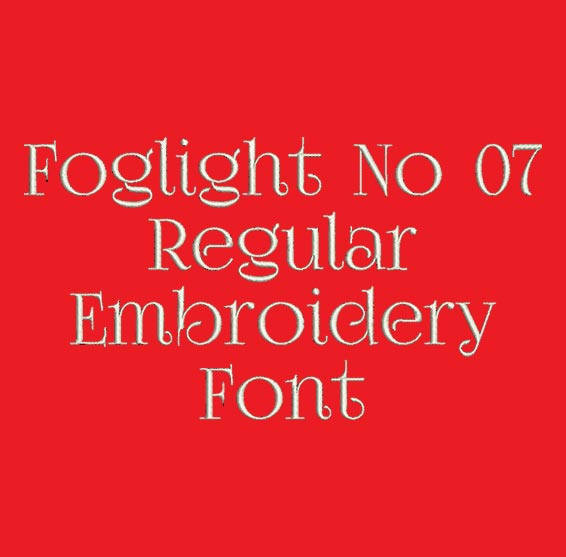
Fancy Classic Font - Foglight No 07 Regular Machine Embroidery Font Now Includes BX Format!
Title: Foglight No 07 Regular Machine Embroidery Font
This Foglight No 07 Regular font is perfect for personalizing clothes, bags, towels and linens!